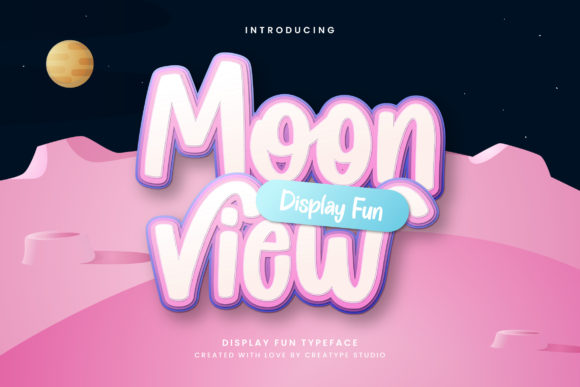
Step into the realm of the Moon View Font and let your designs shine with a touch of charm and whimsy. This captivating display font is crafted by CreatypeStudio, a name synonymous with excellence in the world of typography. Moon View is the perfect font for adding a welcoming and playful vibe to your creations.
With its adorable, informal, and friendly style, Moon View has the power to transform your work into an enchanting visual feast. Its strokes dance across the page like moonlight on a gentle breeze, creating a sense of warmth and inviting exploration. The font's carefree spirit makes it an ideal choice for cartoon-related designs and children's games, bringing a smile to the faces of all who see it.
But Moon View's versatility extends far beyond the realm of childhood whimsy. It is a font that can add a touch of whimsy and lightheartedness to any project. Use it for creating eye-catching poster titles, charming invitations, or heartfelt greeting cards. Moon View has the power to elevate your designs and leave a lasting impression on your audience.
As a PUA-encoded font, Moon View gives you effortless access to its treasure trove of beautiful glyphs and swashes. Unleash your creativity and let your designs bloom with intricate details and flourishes. Moon View is more than just a font; it's a gateway to a world of imagination and expression.